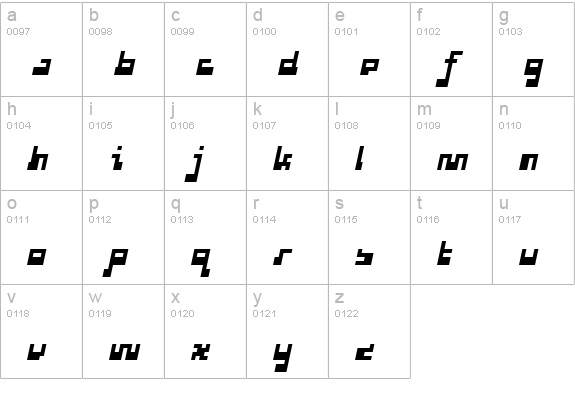
P22 Cusp Square Slant Font Details
The P22 Cusp Square Slant font is a unique and eye-catching typeface that is perfect for adding a touch of modernity and sophistication to any design project. Its slanted letters and sharp edges give it a distinct and edgy appearance, making it ideal for creating bold headlines, striking logos, and captivating branding materials. This font is characterized by its clean lines and geometric shapes, which lend it a contemporary and futuristic feel. The slanted angles of the letters provide a sense of movement and dynamism, making it a great choice for designs that need to convey energy and excitement. One of the standout features of the P22 Cusp Square Slant font is its versatility. It can effortlessly adapt to various design styles, whether it be a sleek and minimalist look or a more ornate and decorative aesthetic. This flexibility makes it a go-to choice for graphic designers, artists, and creatives looking to add a touch of sophistication and originality to their work. And the best part? The P22 Cusp Square Slant font is available for free download at FontsMarket.com. This means that you can easily access and use this font in your design projects without any cost. Whether you are a professional designer or a hobbyist, this font offers you the opportunity to enhance your creations with a stylish and contemporary typeface, without breaking the bank. So, why wait? Head over to FontsMarket.com and grab your free download of the P22 Cusp Square Slant font today. Elevate your designs with its modern and dynamic aesthetic, and let your creativity soar.